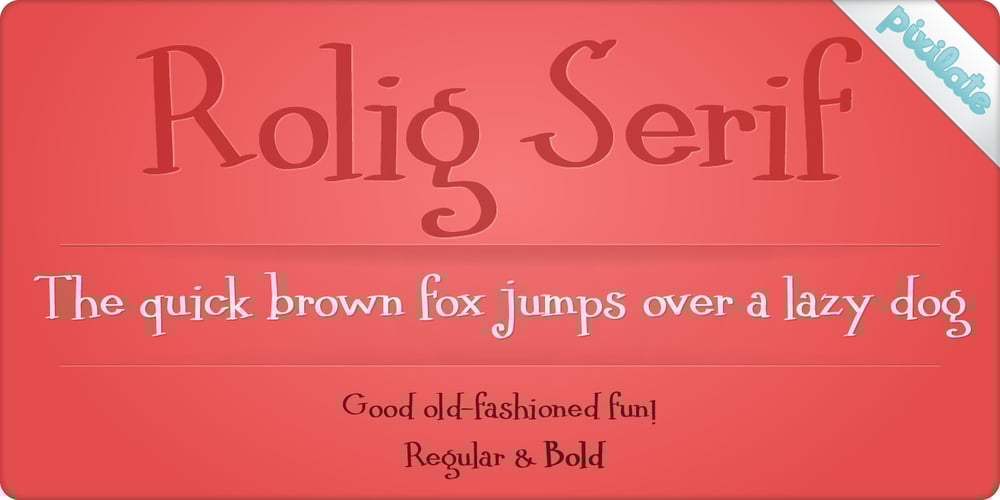
Rolig Serif Px
Rolig Serif Px font
Rolig Serif Px Font Family was designed by Kemie Guaida Ortega and published by Letradora. Rolig Serif Px contains 1 styles and family package options. Rolig is a fun serif typeface with a hand-drawn look. Give your designs a fun retro-ish look.